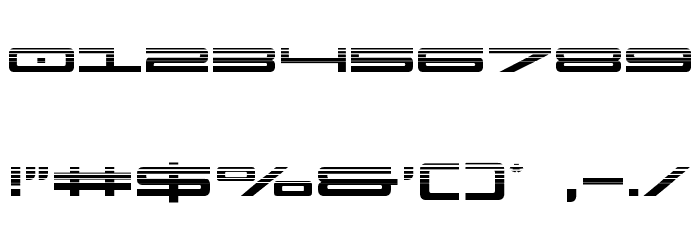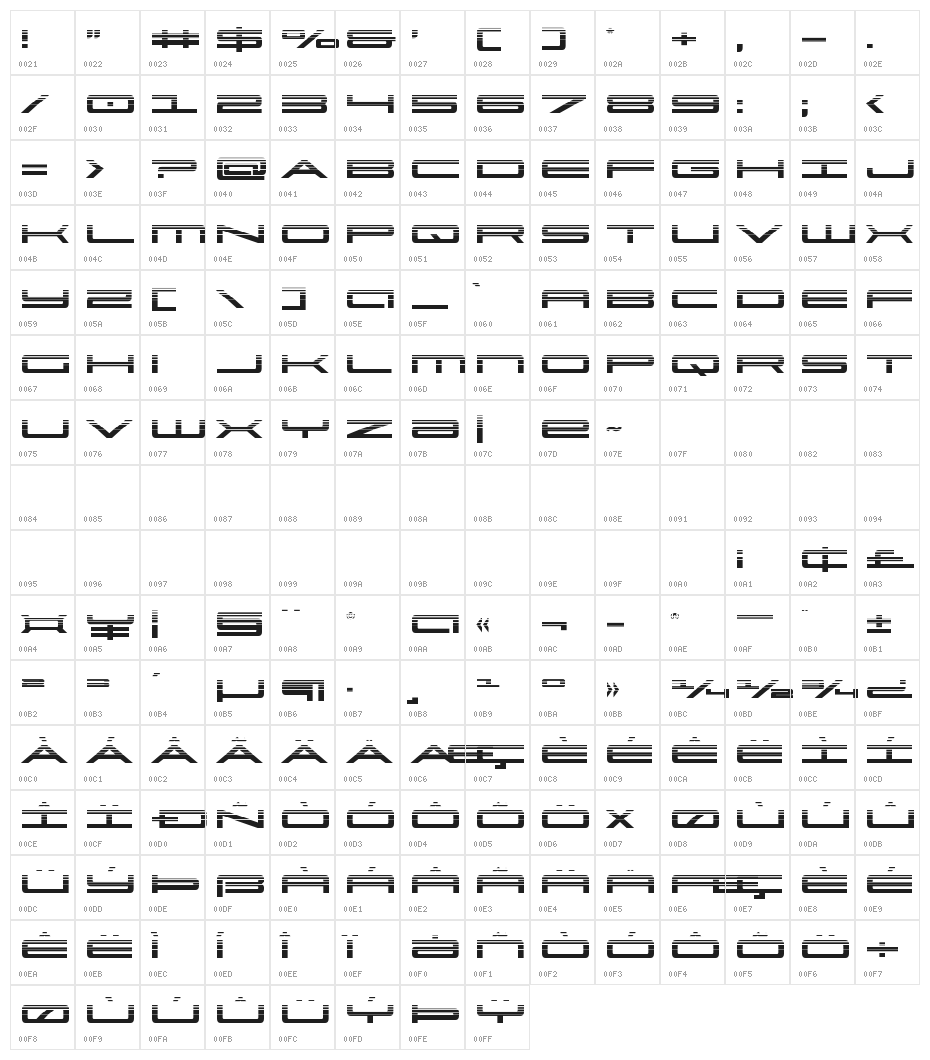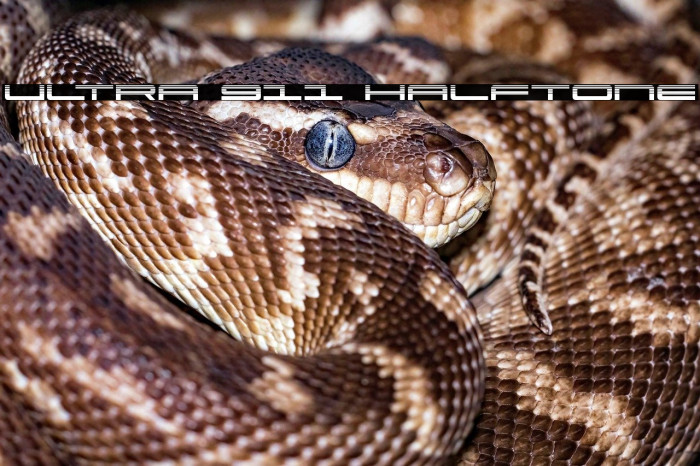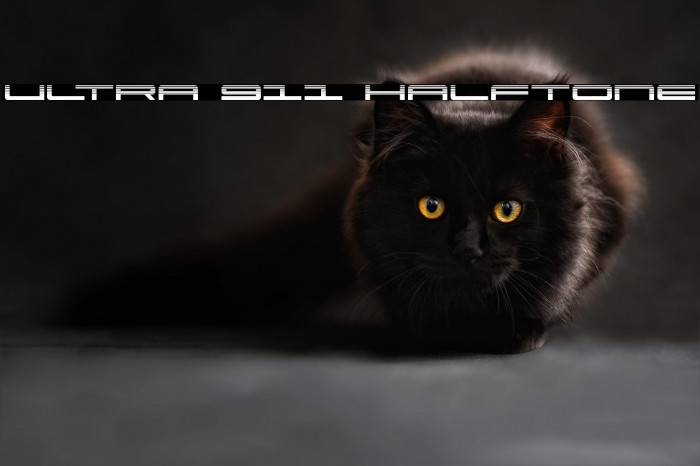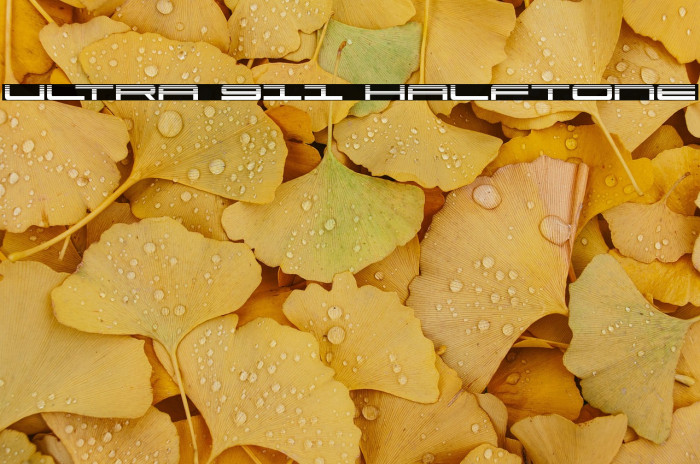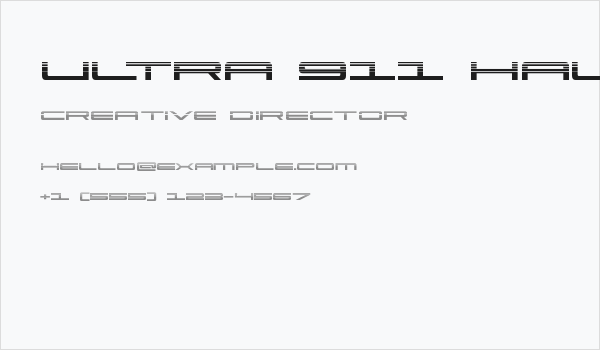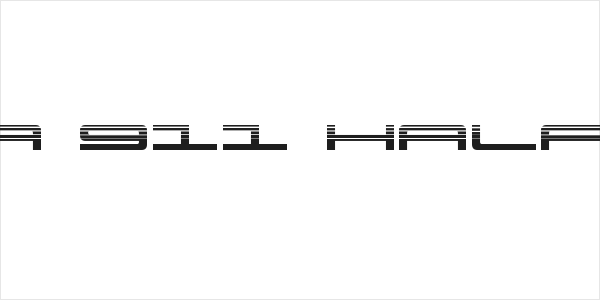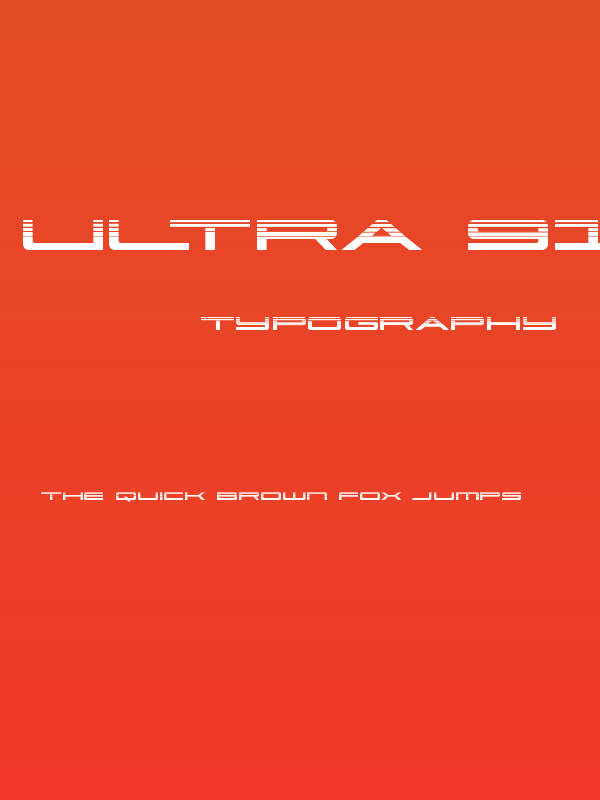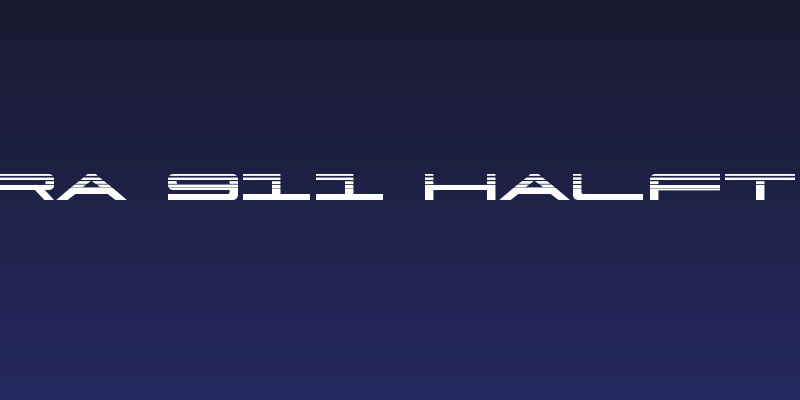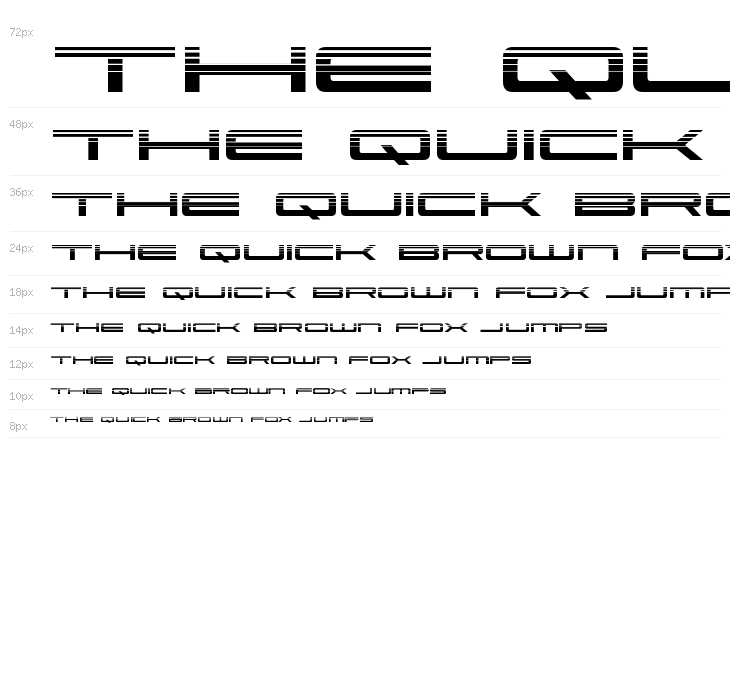
Ultra 911 Halftone Font
Ultra 911 Halftone Description
This font features a futuristic and digital-inspired design, characterized by its distinct halftone pattern within each character. The letters are constructed with a series of horizontal lines and gaps, creating a unique visual texture that suggests movement and modernity. The uppercase and lowercase letters maintain a consistent style, with sharp angles and geometric forms. The numerals and special characters follow the same design principles, ensuring a cohesive look across all elements. This font's innovative style makes it stand out, ideal for projects that require a modern and tech-savvy aesthetic.
| Proposed Projects | Ideal for technology branding, digital media, video game titles, and sci-fi themed projects. |